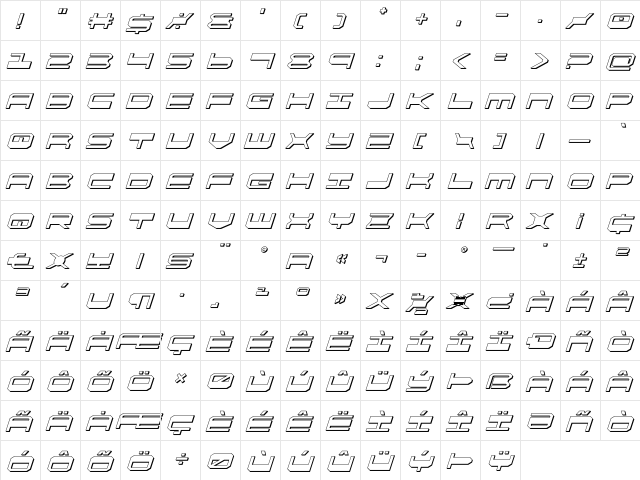
QuickGear 3D Italic Italic
Design Context for QuickGear 3D Italic Typeface
QuickGear 3D Italic takes a measured approach to typography — its balanced proportions and neutral character make it a reliable workhorse for both digital and print work. The dynamic lean of this cut emphasises speed and emphasis in any layout.
Pro Tip: Try QuickGear 3D Italic for annotation and caption copy alongside an upright companion — the contrast in angle creates a dynamic but ordered typographic system.